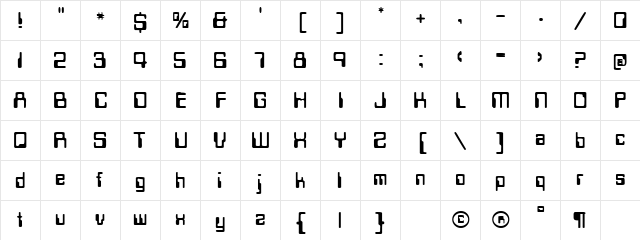
TechSchool Regular Font Preview
TechSchool Regular
Design Context for TechSchool Typeface
TechSchool channels digital-age aesthetics through its sharp, structured letterforms — ideal for brands that want to signal innovation.
Pro Tip: Try TechSchool with generous letter-spacing in UI labels and navigation — the geometric forms benefit from room to breathe.